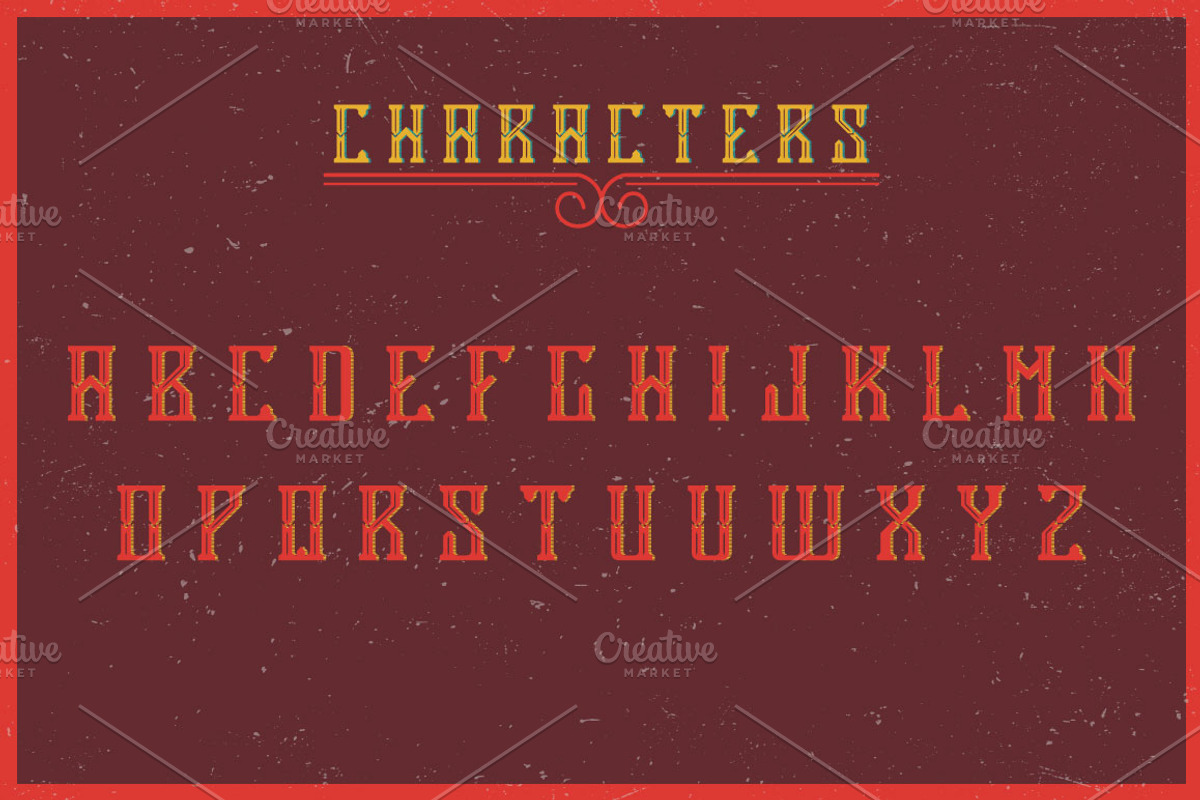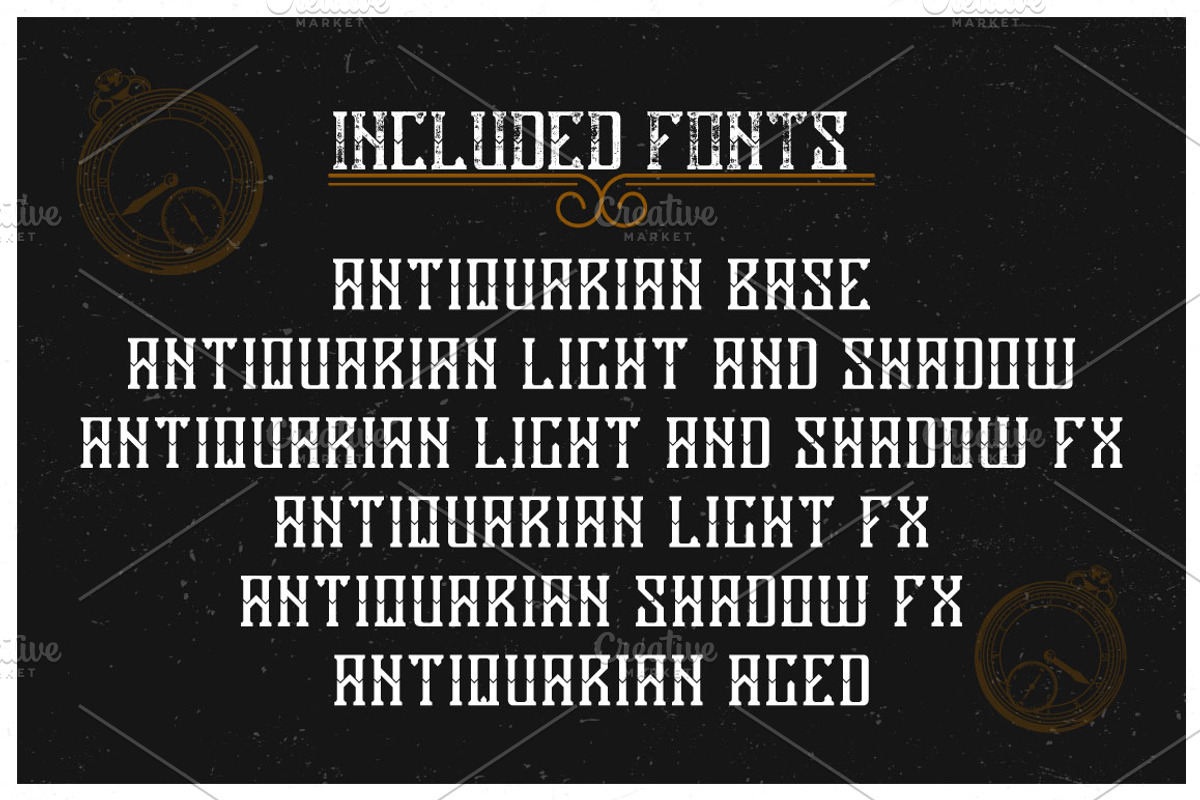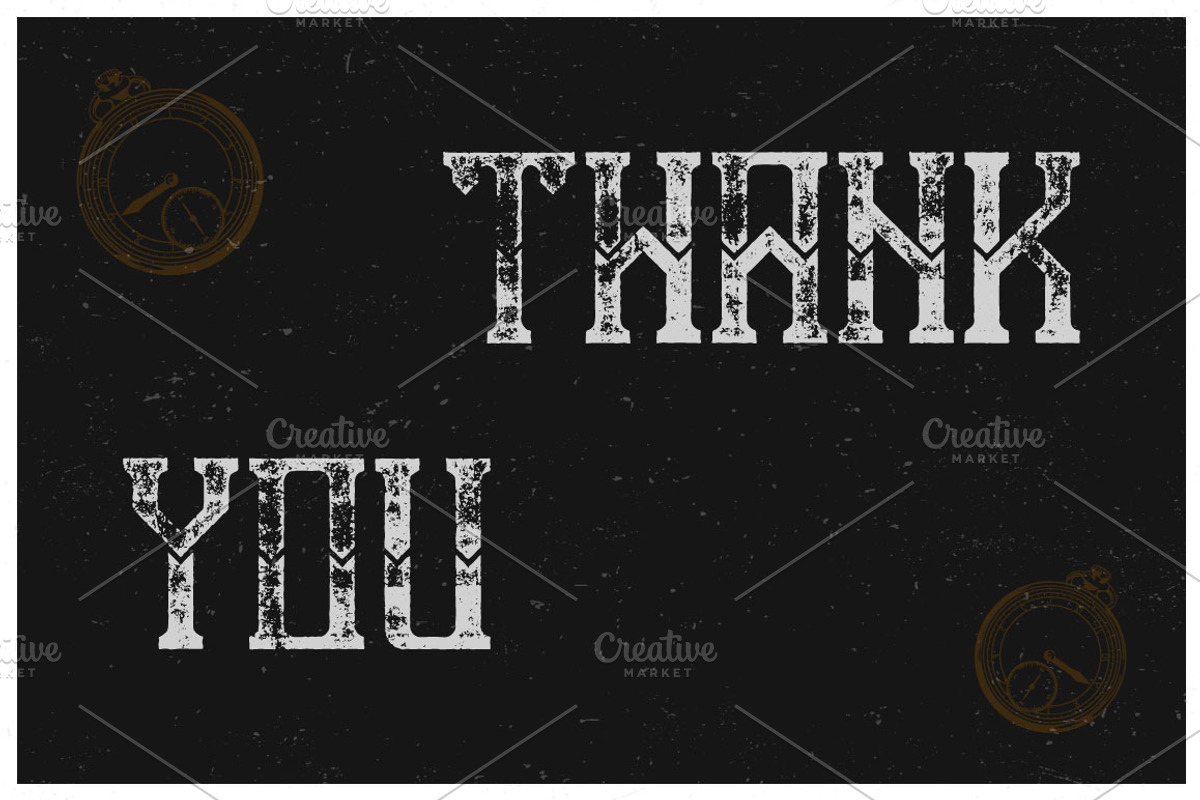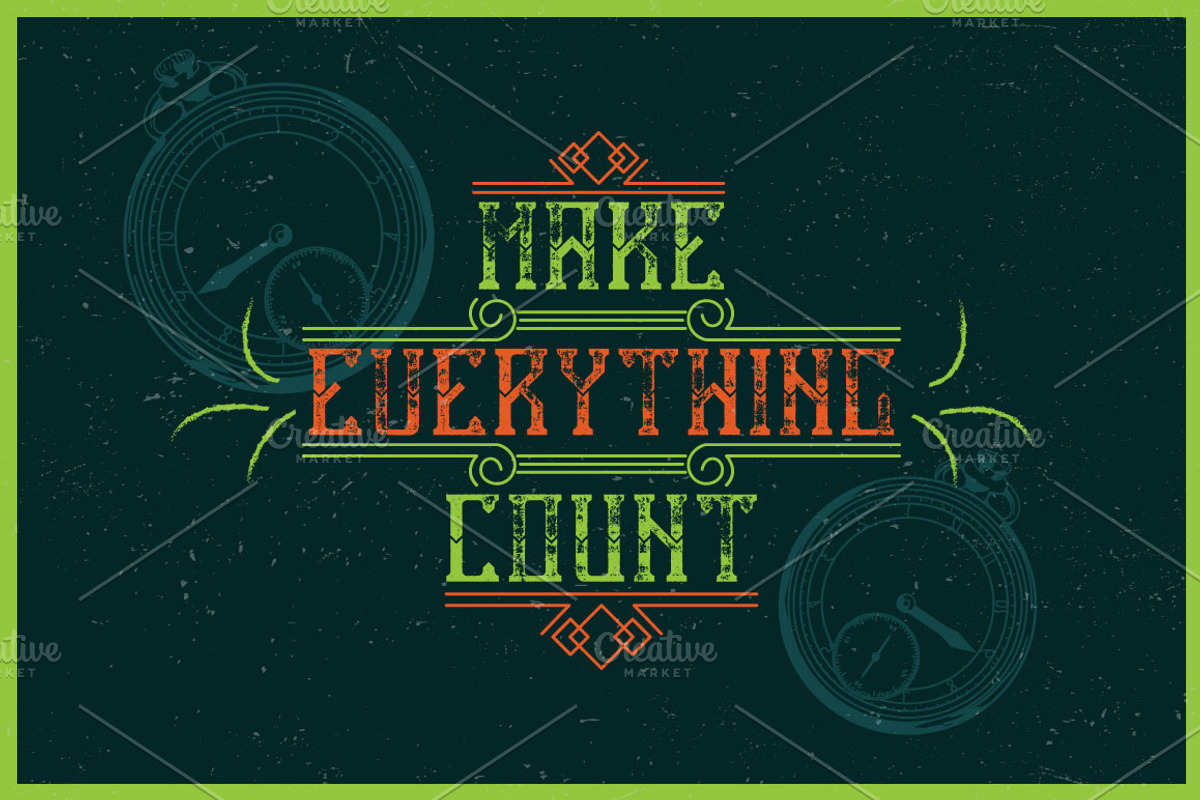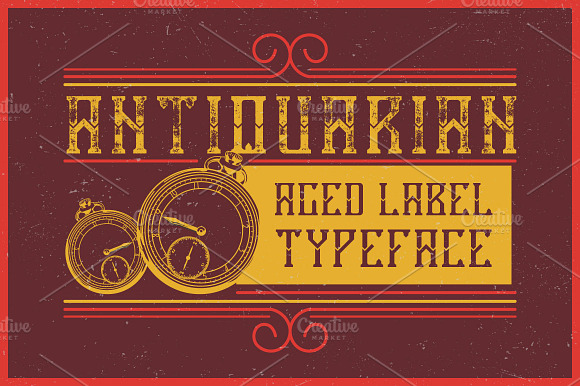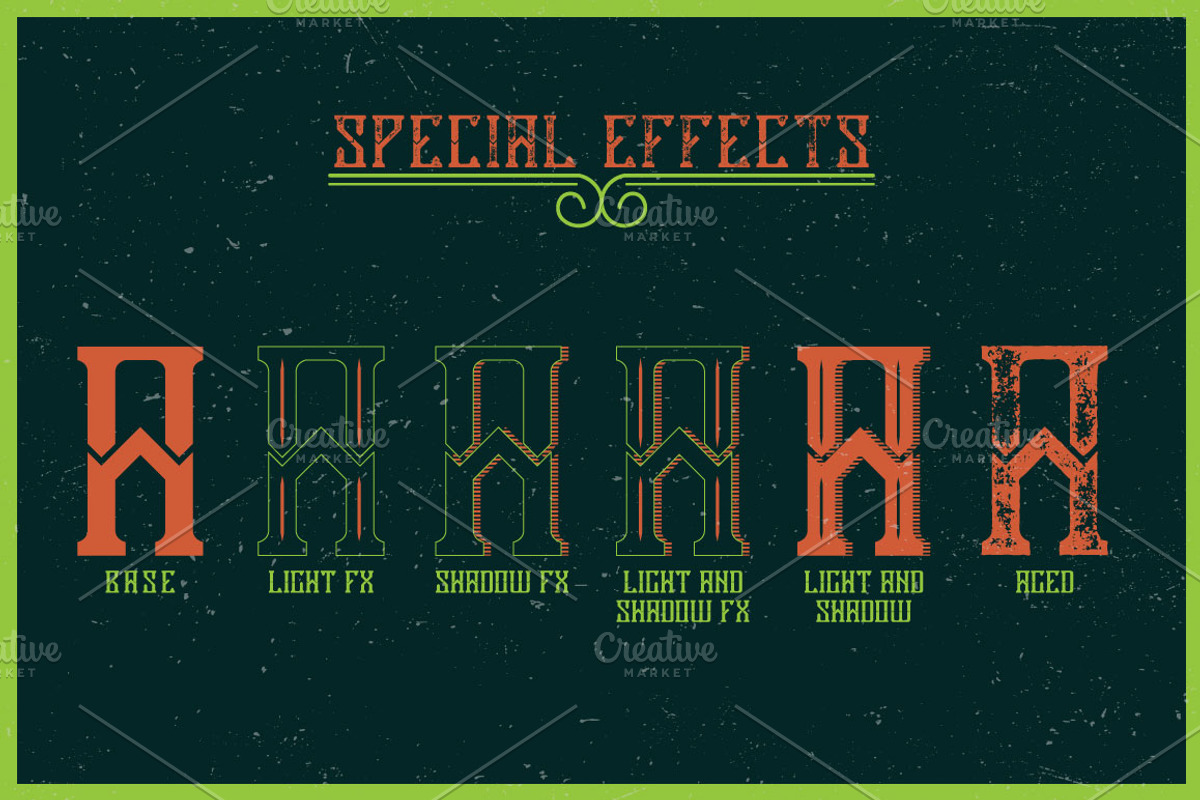
Antiquarian label typeface
Introducing a vintage label typeface named "Antiquarian". It's made in strong and vintage label style. Typeface looks great on any label designs and t-shirts.
5 fonts in complect with special effects + aged version
You can mix color of base font, texture and shadow effect (look at 4th screenshot)